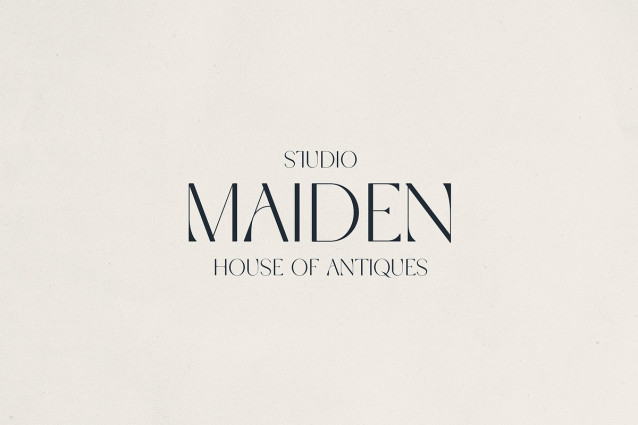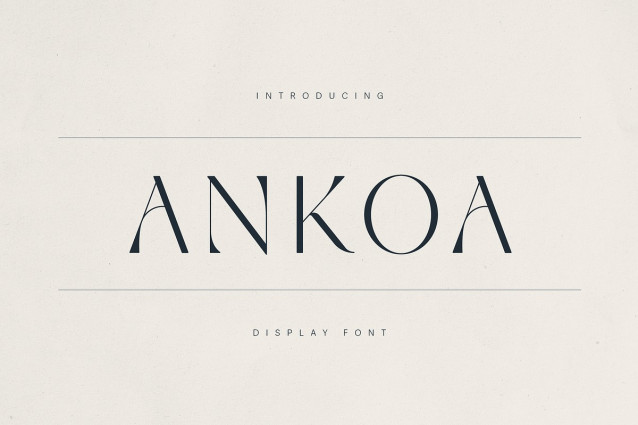
Ankoa Font
Ankoa Font is a contemporary display serif font that balances artistic flair with timeless sophistication. Defined by its elegant high-contrast strokes, unique curved terminals, and refined proportions, Ankoa captures the essence of modern luxury with a whisper of vintage romance.
Perfect for upscale branding, editorial layouts, and thoughtful packaging, Ankoa evokes a sense of intentionality and understated beauty. Each letterform is crafted to create visual intrigue, making it ideal for headlines, logos, wedding collateral, and lifestyle storytelling.